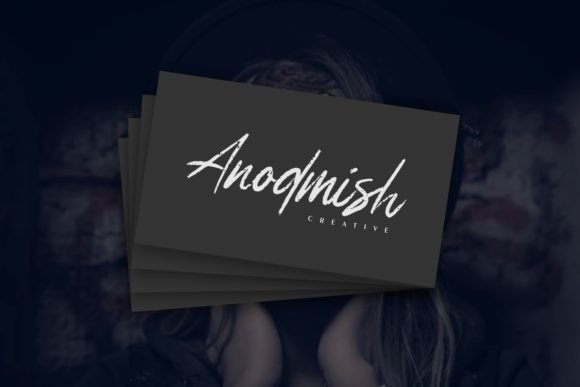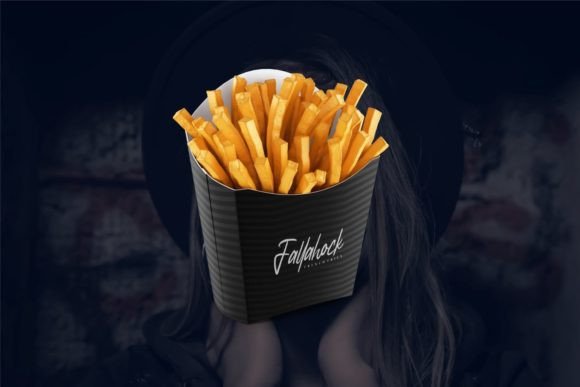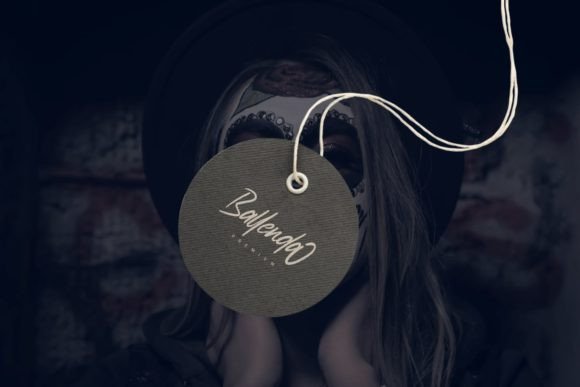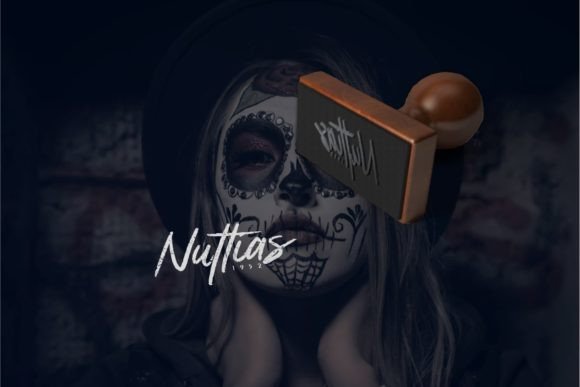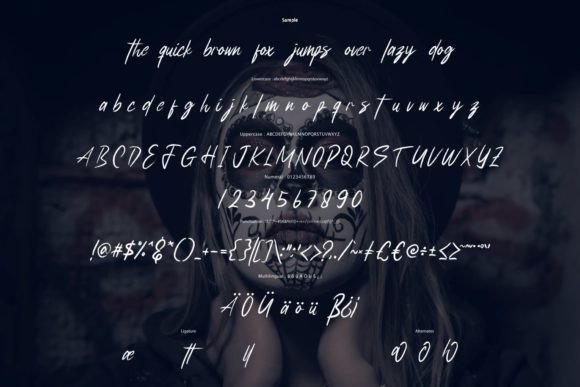
Hasttallim Font: The Modern Handwritten Script Font You Need for Your Designs
In the world of typography, fonts play a crucial role in making or breaking a design. As a designer or crafter, you’re constantly on the lookout for the perfect font to elevate your projects. If you’re looking for a modern and cool handwritten script font that exudes timeless style, look no further than Hasttallim. In this article, we’ll dive into the world of Hasttallim and explore what makes it a must-have font for your design arsenal.
What is Hasttallim Font?
Hasttallim is a modern and cool handwritten script font that has taken the design world by storm. Its incredibly distinct and timeless style has captured the hearts of designers and crafters alike. With its unique blend of elegance and playfulness, Hasttallim is perfect for creating spectacular designs that stand out from the crowd.
Key Features of Hasttallim Font
- Modern and Cool Design: Hasttallim boasts a fresh and contemporary design that’s perfect for modern designs.
- Handwritten Script Style: The font’s handwritten script style gives it a personal and human touch that’s hard to resist.
- Distinct and Timeless: Hasttallim’s unique style is both timeless and distinctive, making it perfect for designs that need to stand out.
- Highly Versatile: The font is highly versatile and can be used for a wide range of design projects, from branding and advertising to packaging and more.
Why Use Hasttallim Font?
So, why should you use Hasttallim font for your designs? Here are just a few compelling reasons:
- Adds a Personal Touch: Hasttallim’s handwritten script style adds a personal touch to your designs, making them more relatable and engaging.
- Creates Emotional Connection: The font’s unique style creates an emotional connection with your audience, making your designs more memorable.
- Perfect for Branding: Hasttallim is perfect for branding projects, as it helps to create a unique and recognizable identity for your brand.
- Easy to Read: Despite its unique style, Hasttallim is easy to read, making it perfect for body text and headlines.
How to Use Hasttallim Font?
- Pair it with Other Fonts: Pair Hasttallim with other fonts to create a unique and visually appealing typography.
- Use it for Headlines: Use Hasttallim for headlines and titles to add a touch of elegance and sophistication.
- Experiment with Colors: Experiment with different colors to find the perfect combination that brings out the best in Hasttallim.
- Use it for Branding: Use Hasttallim for branding projects, such as logos, business cards, and packaging.
In conclusion, Hasttallim font is a modern and cool handwritten script font that’s perfect for designers and crafters looking to elevate their designs. With its unique style, versatility, and ease of use, Hasttallim is a must-have font for any design project. So, fall in love with Hasttallim’s incredibly distinct and timeless style and use it to create spectacular designs that leave a lasting impression!